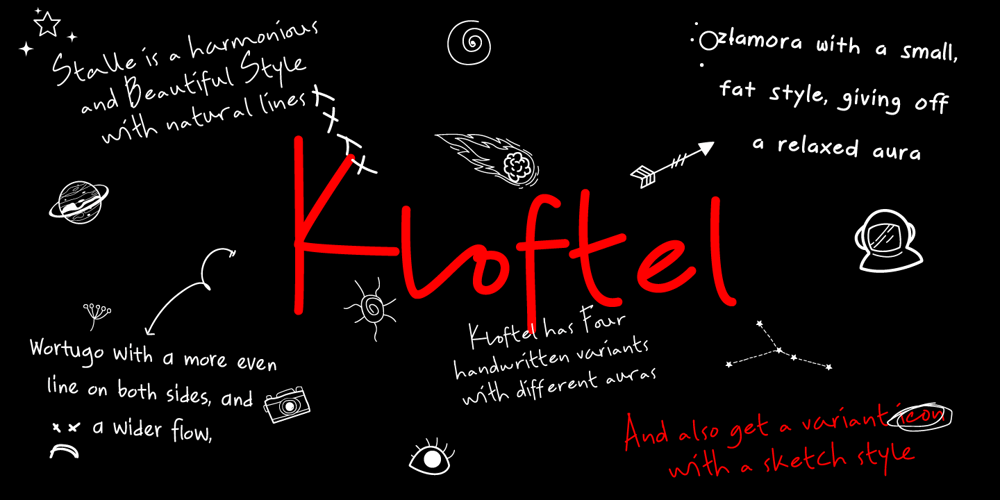
ZT Kloftel Font Family was designed by Khair Unnas and published by Khaiuns. ZT Kloftel contains 4 styles and family package options. ZT Kloftel has three variants of handwriting with different auras and also gets one variant of icons with a sketch style, this helps add depth to the art of handwriting.ZT Kloftel Stalle is a well-matched and Beautiful Style with natural lines, with a very large difference between uppercase and lowercase letters, and can produce a very natural writing style.ZT Kloftel Wortugo with a wider groove, with a messier concept, it also has its own uniqueness, such as children’s writing which is suitable for branding explanations, or graffiti explaining your designs.ZT Kloftel Zlamora with a small and chubby style exudes a relaxed aura, perfect for vintage branding or your sad sunset captionI hope you have fun using ZT KlotinThanks for using this font ~ Khaiuns X zelowtype